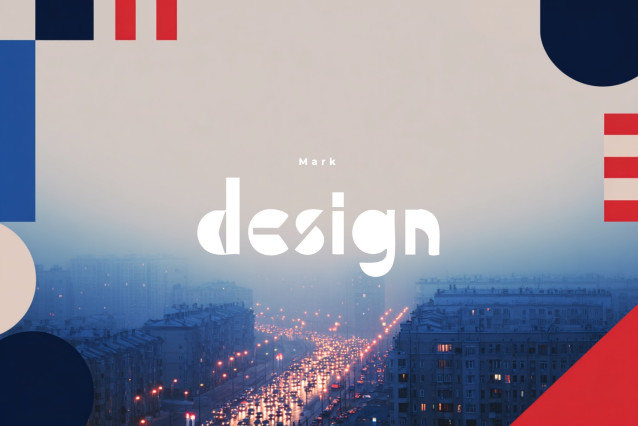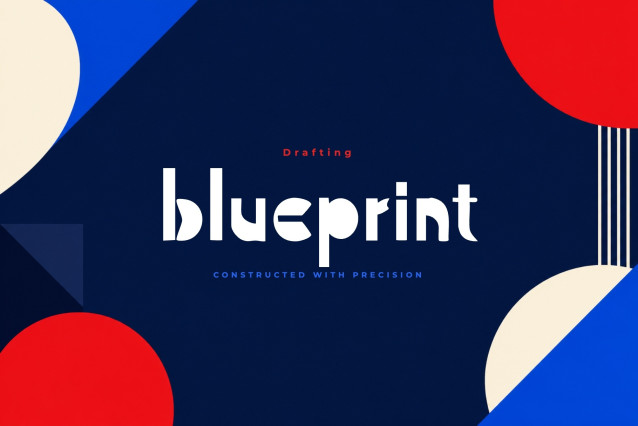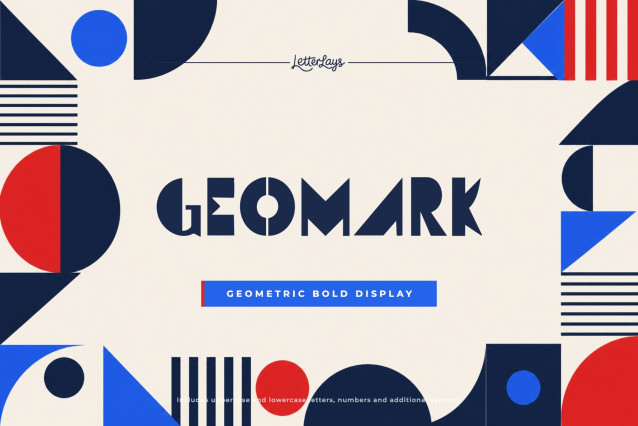
Geomark is a bold geometric display font with clean construction shapes, confident modular rhythm, and modern graphic clarity. It is designed for visual projects that need personality, clarity, and a memorable handmade display voice.
🎨 This font is ideal for modern branding, architecture posters, tech products, geometric logos, editorial headlines, signage, product packaging, minimal graphic systems. It works especially well when a design needs a strong title, a distinctive product name, or a warm typographic accent that instantly sets the mood.
💛 Geomark brings character without feeling generic. Use it for branding, packaging, posters, labels, social graphics, invitations, editorial layouts, and creative products that need a custom, expressive look.